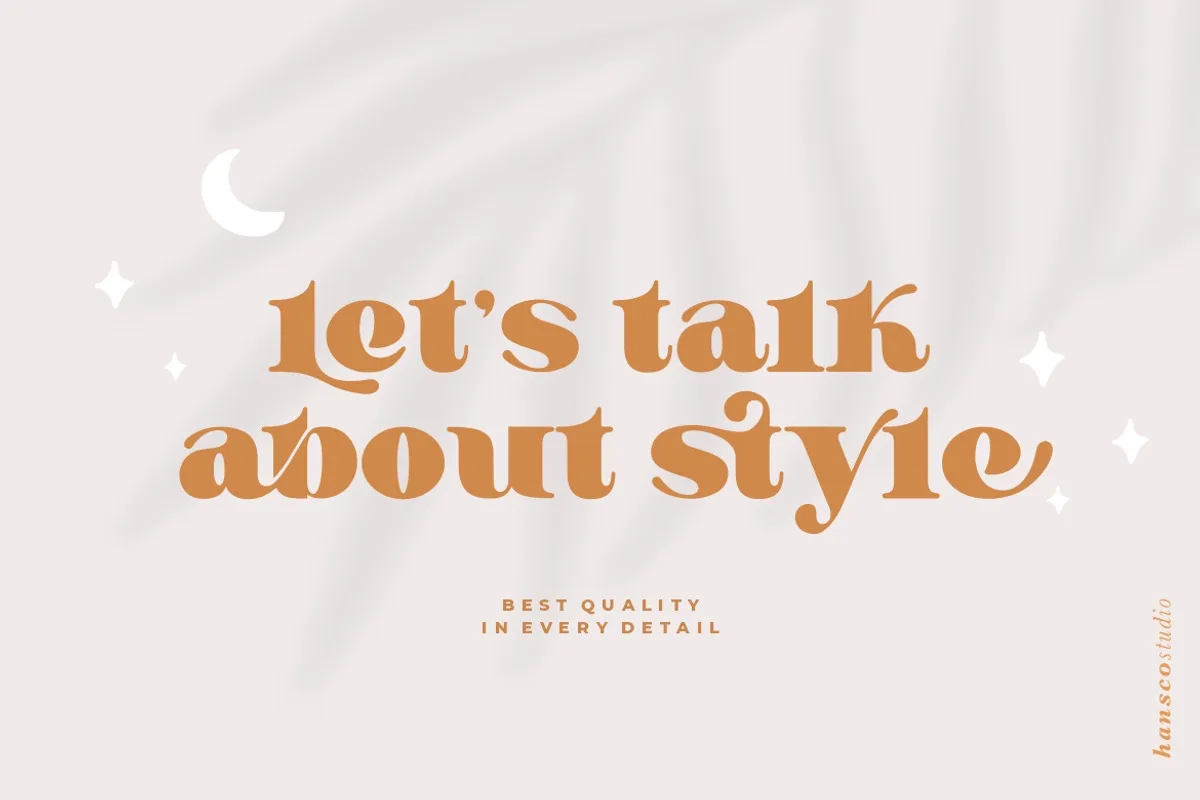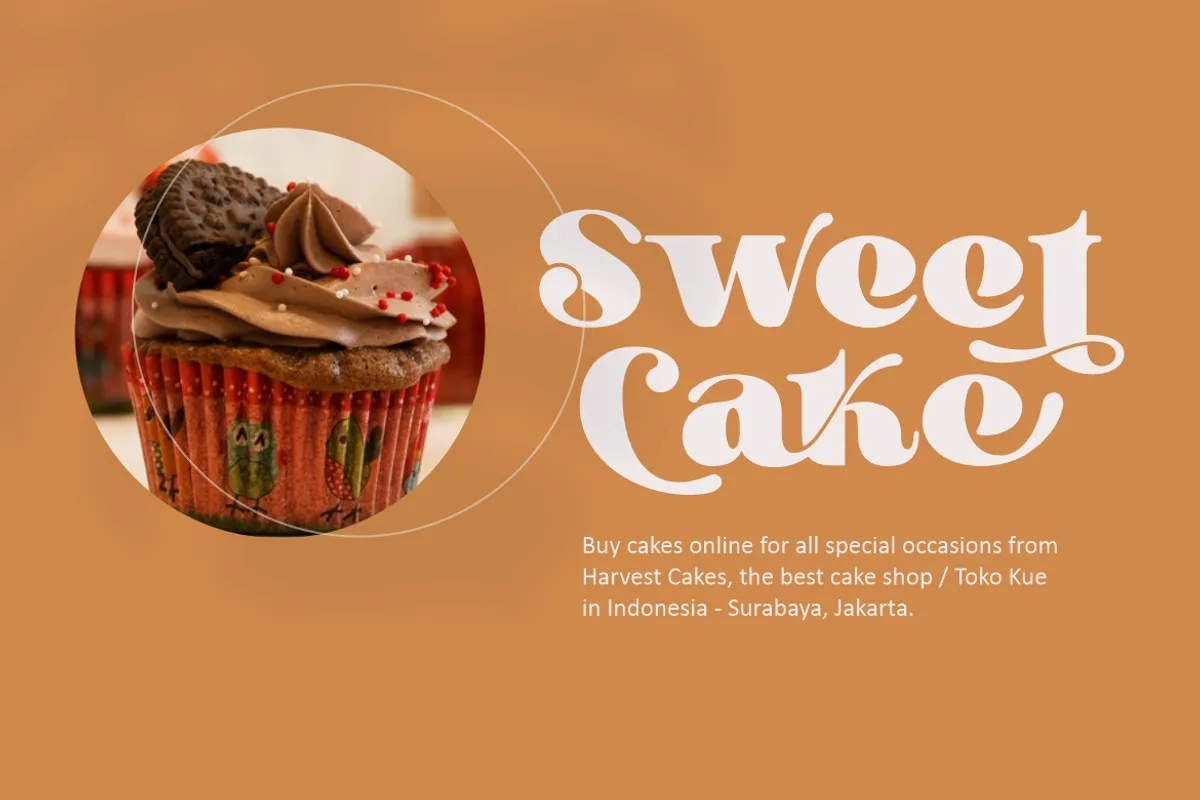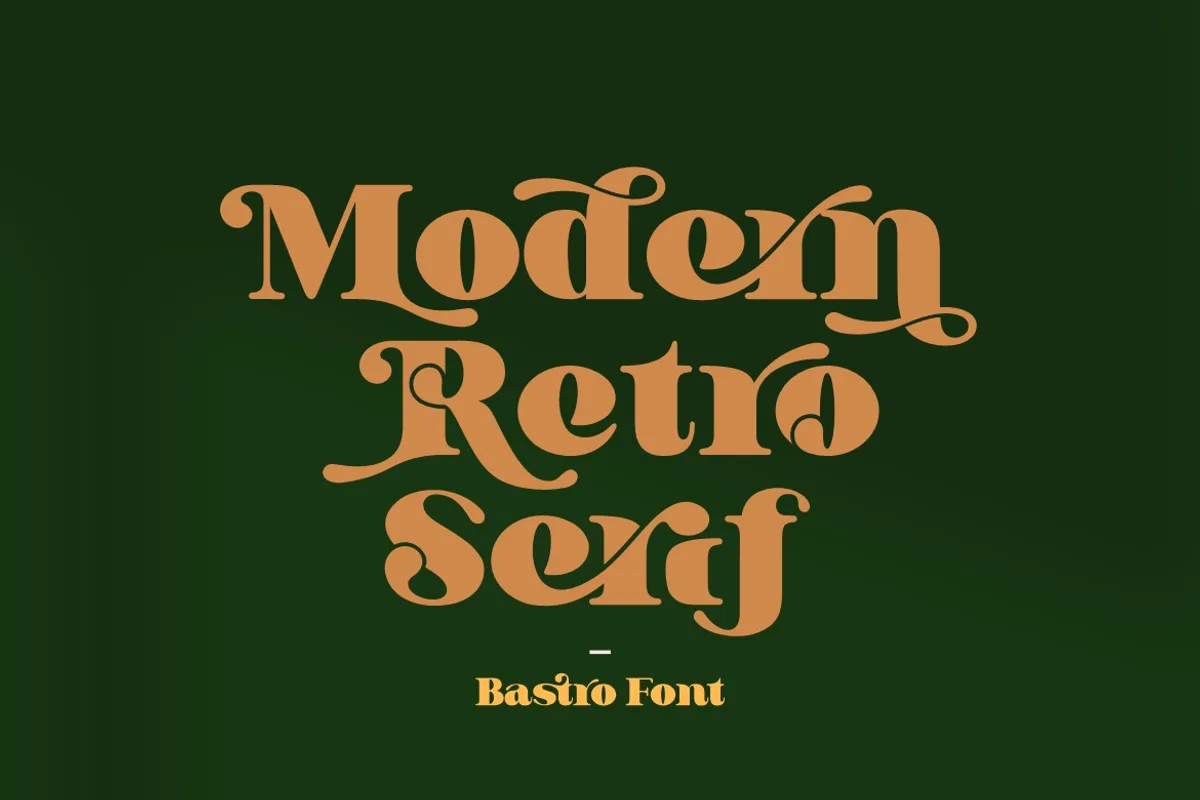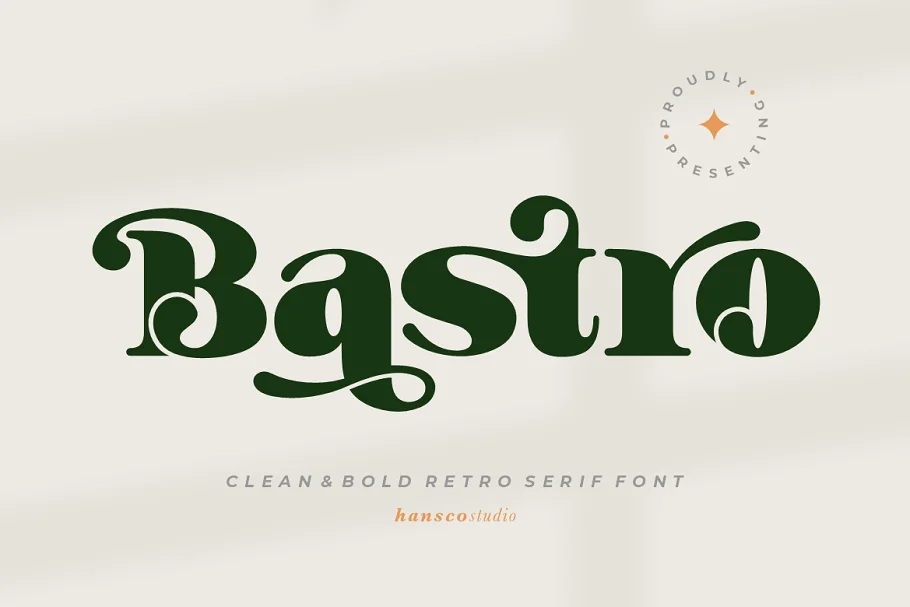
Bastro is a bold retro serif font that feels casual and clean an incredible modern retro aesthetic. Use this Bastro serif font to add that special modern retro touch to any design idea you can think of! This font is PUA encoded which means you can access all of the glyphs and swashes with ease via Character map or Character Viewer on mac!
- uppercase & lowercase
- numbers and punctuation
- multilingual
- alternates